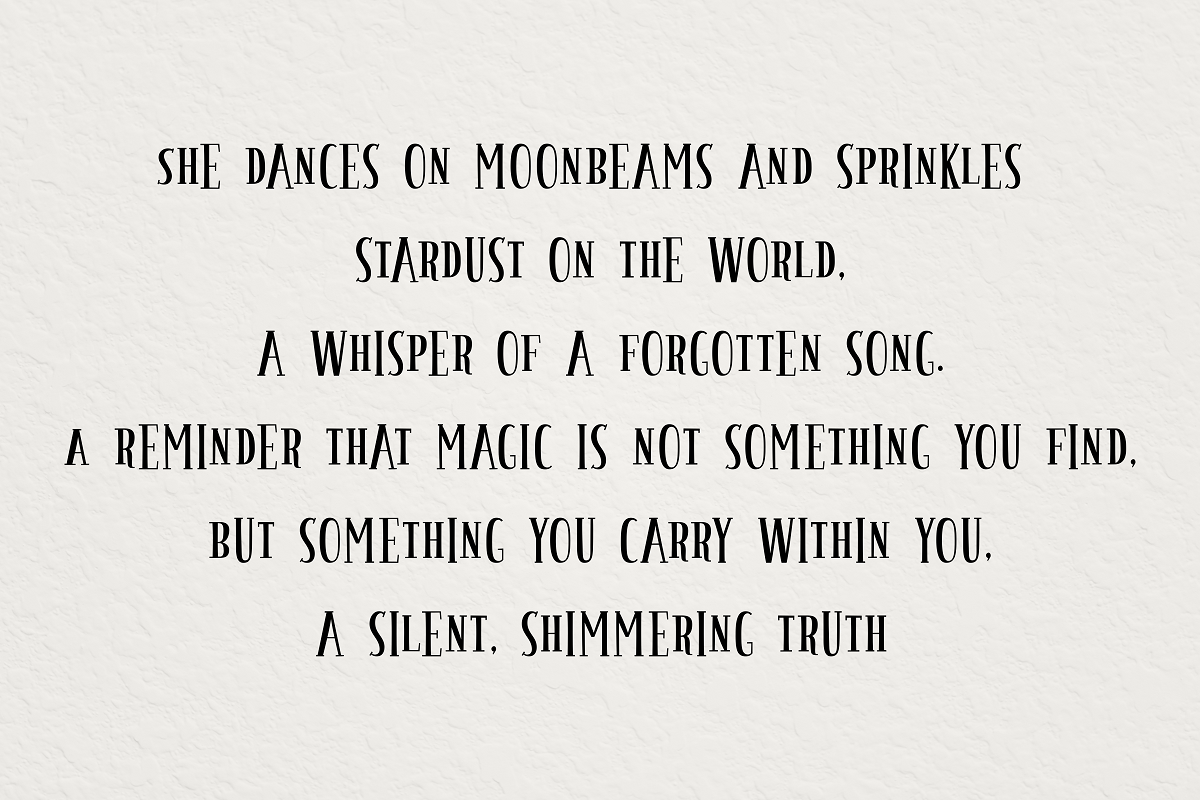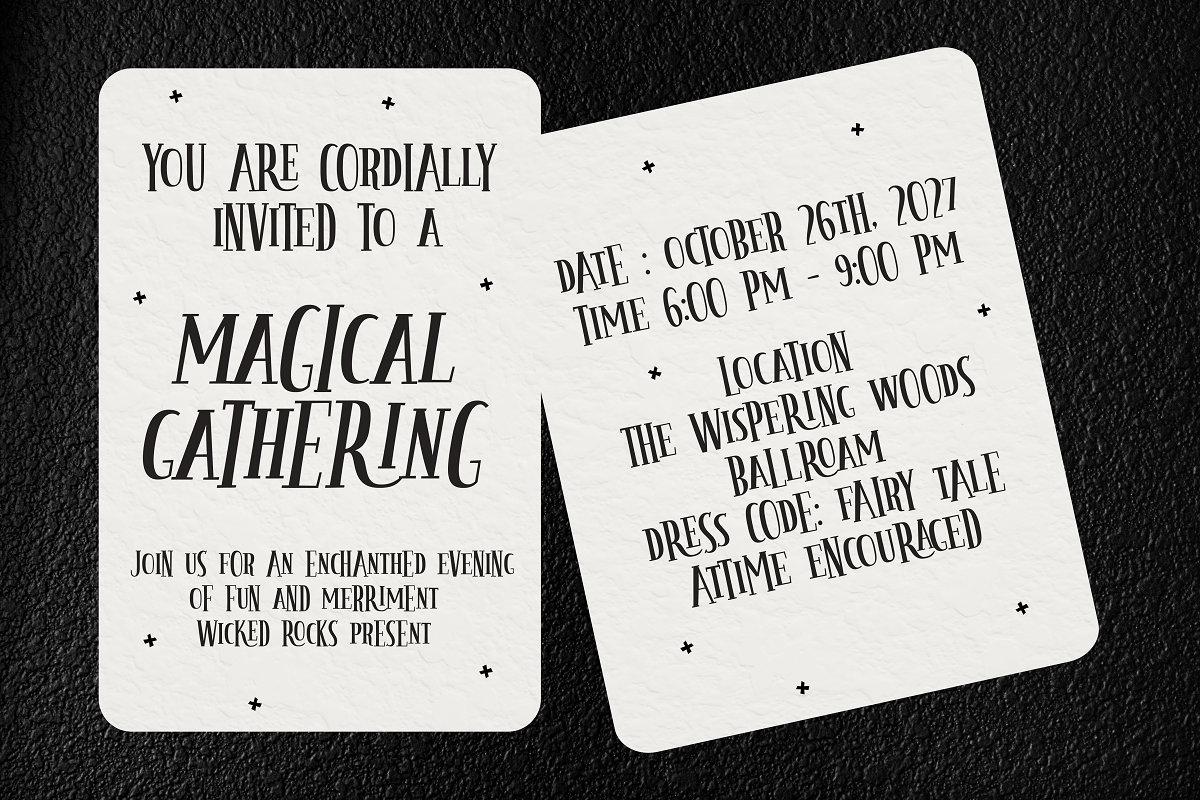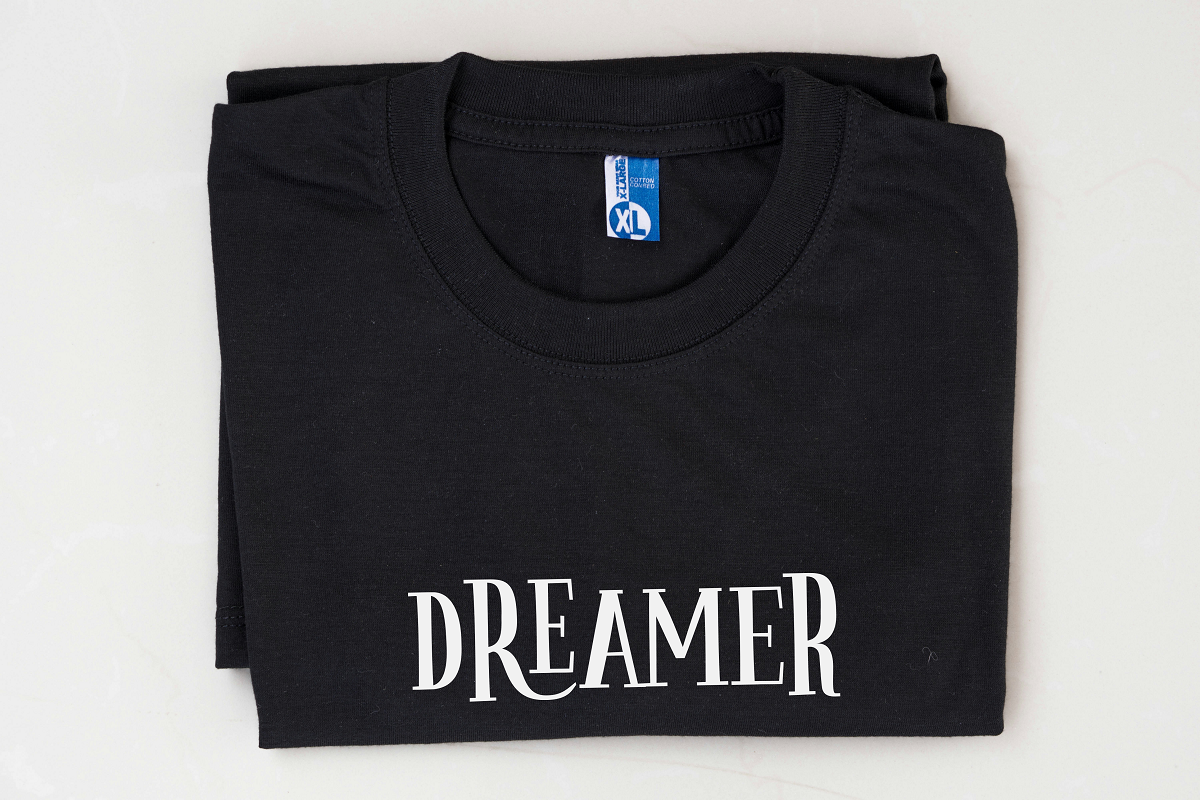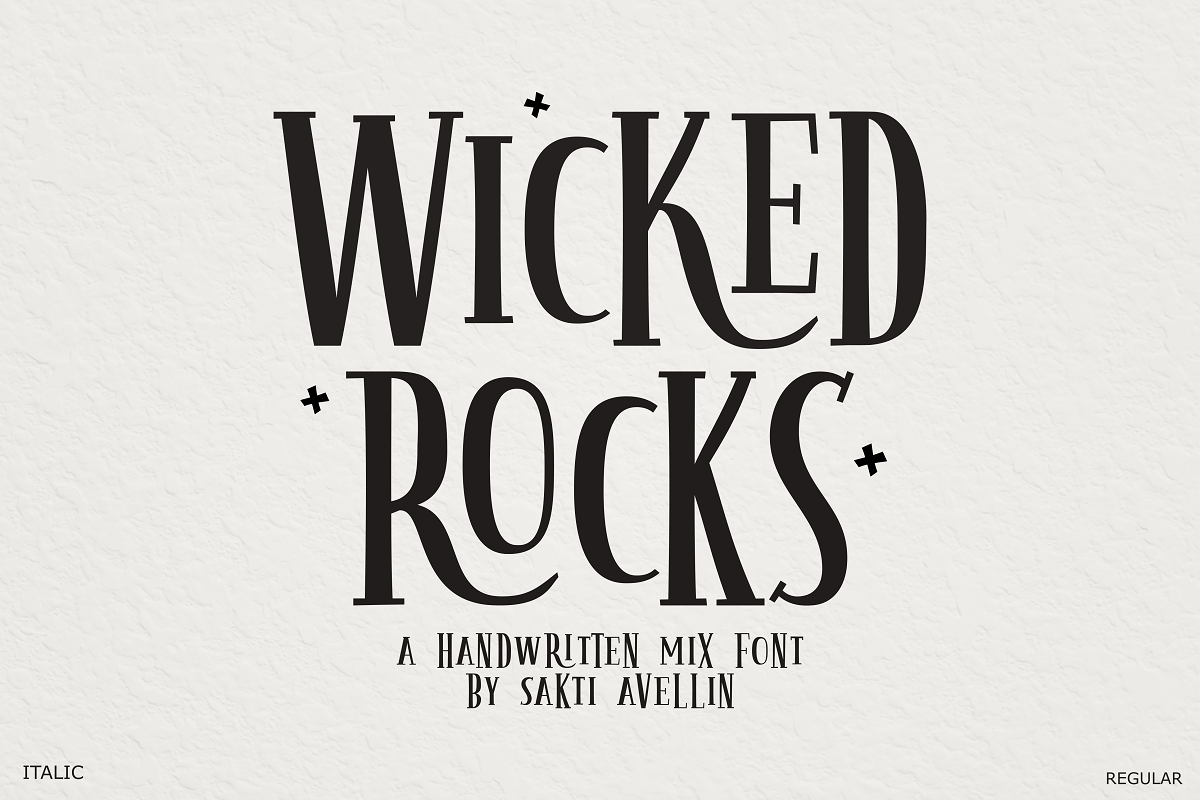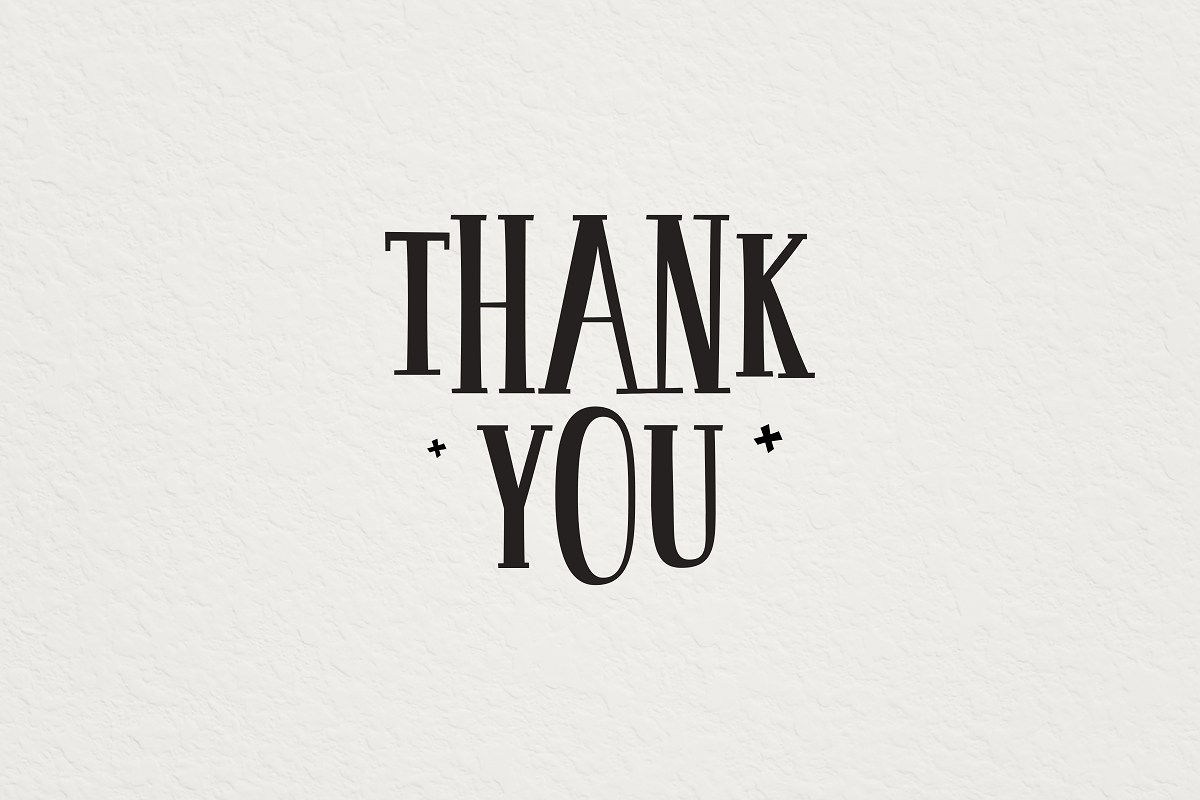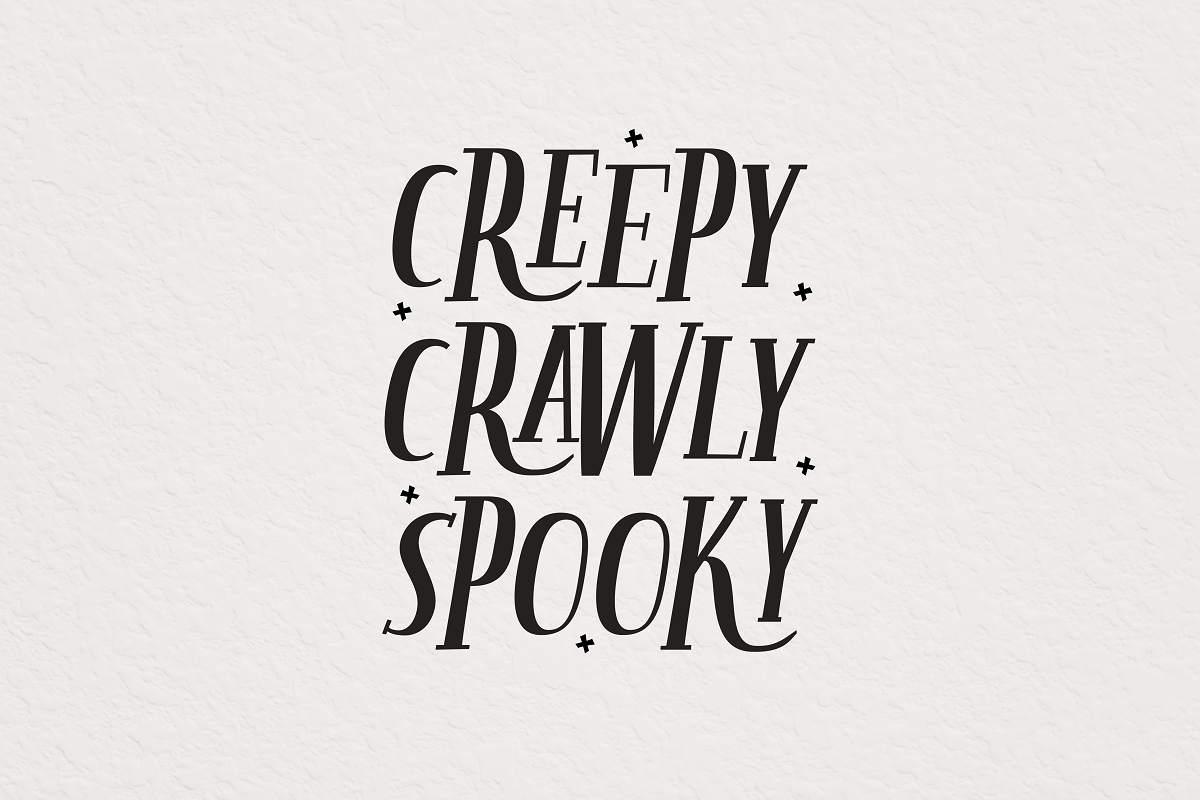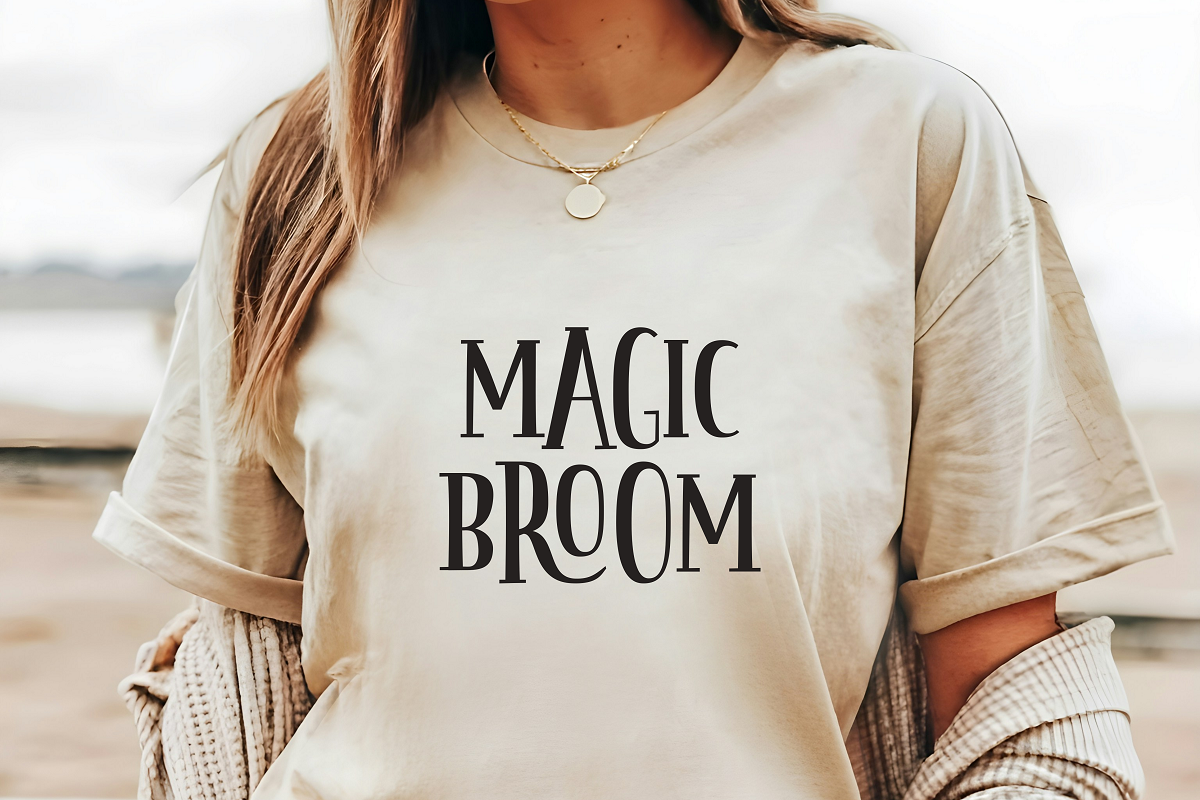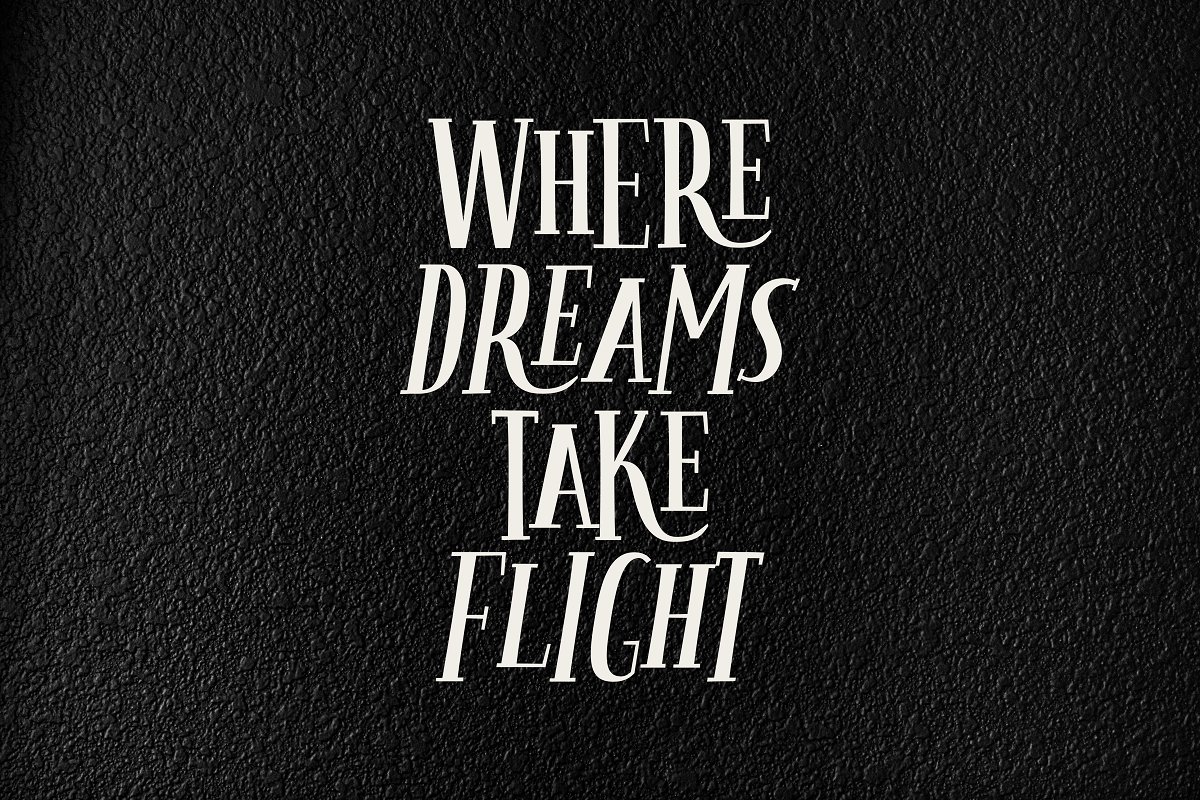
Wicked Rocks - Handwritten Font
Wicked Rocks is a captivating, tall, and effortlessly edgy handwritten mix font designed to bring a touch of mysterious elegance to your creative projects. This versatile display typeface includes both regular and italic styles, featuring slender letterforms with sharp, unique curves that make it essential for spooky branding, mystical Halloween invitations, gothic posters, and aesthetic social media graphics. Its distinctive, elongated silhouette ensures it stands out as a powerful decorative font for headlines and product packaging, appealing to designers seeking a blend of sophistication and a wicked, handcrafted aesthetic. Elevate your designs with the enchanting and modern hand-drawn charm of Wicked Rocks!